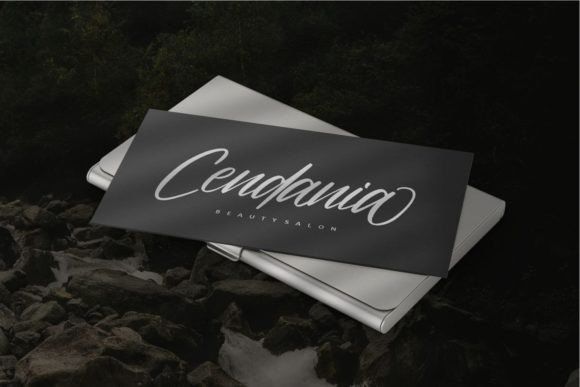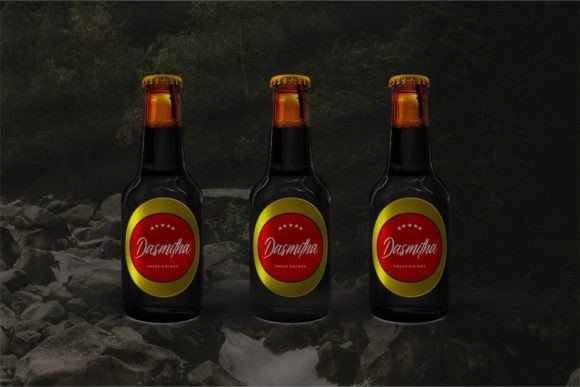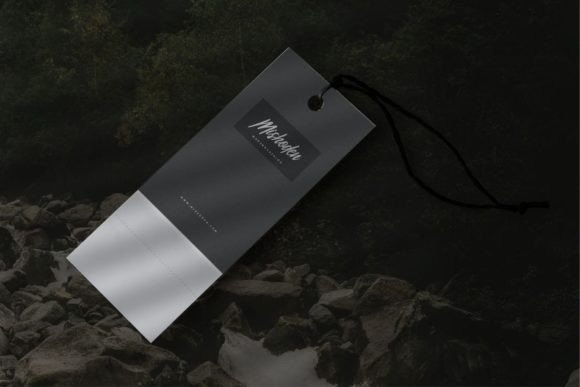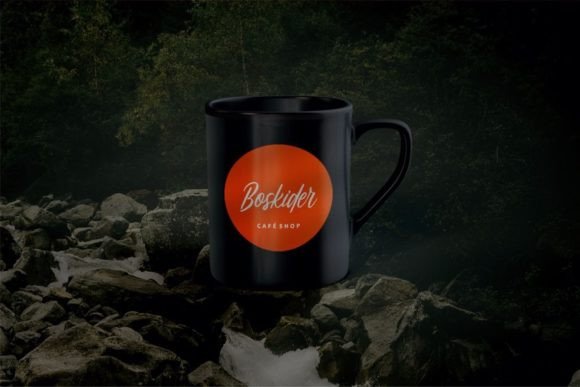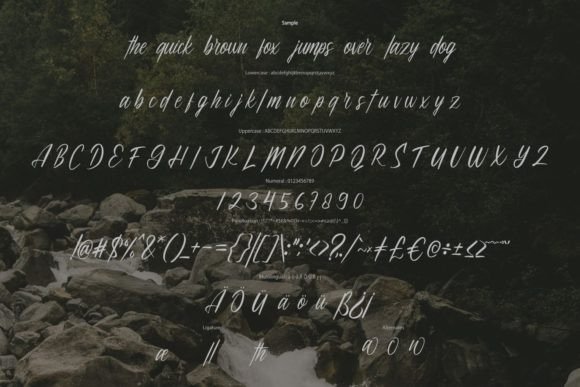
Introducing Harthian Font: Elevate Your Designs with Elegance and Sophistication
In the world of typography, fonts play a crucial role in conveying the tone and personality of a design. For designers and crafters seeking to add a touch of elegance and sophistication to their work, Harthian Font is an exceptional choice. This modern script font, with its beautiful calligraphy style, has become a popular pick for a wide range of applications, from invitations and greeting cards to branding materials, business cards, quotes, posters, and more.
What Makes Harthian Font Stand Out?
Harthian Font boasts a unique blend of modernity and classic charm. Its flowing script and calligraphic flair make it perfect for designs that require a personal touch. The font’s elegant strokes and refined lines ensure that it looks stunning in various contexts, whether you’re designing a wedding invitation, a business card, or a promotional poster.
Key Features of Harthian Font
- Modern Script Style: Harthian Font features a contemporary script style that adds a touch of sophistication to any design.
- Calligraphy Inspiration: The font draws inspiration from traditional calligraphy, giving it a unique and elegant feel.
- Versatile: Harthian Font can be used for a wide range of applications, including invitations, greeting cards, branding materials, business cards, quotes, posters, and more.
- Elegant and Refined: The font’s elegant strokes and refined lines ensure that it looks stunning in various contexts.
Harthian Font is an excellent choice for designers and crafters who want to add a personal touch to their work. Whether you’re creating custom wedding invitations, designing business cards for a client, or crafting beautiful posters for a marketing campaign, Harthian Font can help you achieve your goals.
Tips for Using Harthian Font Effectively
To get the most out of Harthian Font, consider the following tips:
- Pair with Simple Fonts: Combine Harthian Font with simple, clean fonts to create a striking contrast and make your design stand out.
- Use for Headlines and Titles: Harthian Font is perfect for headlines and titles, where its elegant script style can shine.
- Experiment with Colors: Try pairing Harthian Font with different colors to create a unique and eye-catching design.
Where to Use Harthian Font
Harthian Font can be used in a variety of contexts, including:
- Invitations: Wedding invitations, birthday invitations, graduation invitations, and more.
- Greeting Cards: Birthday cards, holiday cards, thank-you cards, and more.
- Branding Materials: Logos, brochures, flyers, and more.
- Business Cards: Create a lasting impression with elegant business cards featuring Harthian Font.
- Posters: Use Harthian Font to create eye-catching posters for marketing campaigns, events, and more.
Harthian Font is a versatile and elegant script font that can elevate your designs to the next level. Its modern calligraphy style makes it perfect for a wide range of applications, from invitations and greeting cards to branding materials and posters. Whether you’re a designer or crafter, Harthian Font is an excellent choice for anyone looking to add a touch of sophistication and elegance to their work.